Best Sans Serif Fonts in 2025
Choosing the best sans serif fonts is subjective, but one thing is clear—they’re everywhere. From digital interfaces to branding, these typefaces define modern design.
Sans serif fonts (also known as grotesques) are fonts that do not have serifs—those small projecting strokes at the ends of letters. Because of their lack of embellishments, sans fonts are seen as more readable and minimalist — virtually everything modern designers may need and want. The popularity is backed by statistics, with a recent survey from Monotype indicating that 52% of designers have used sans serif fonts over the past year.
At Groteskly Yours Studio, we know how to choose a sans serif font. Explore this list of our best sans serif fonts and font combinations from Groteskly Yours Studio type library.
1. Oktah Neue Font Family
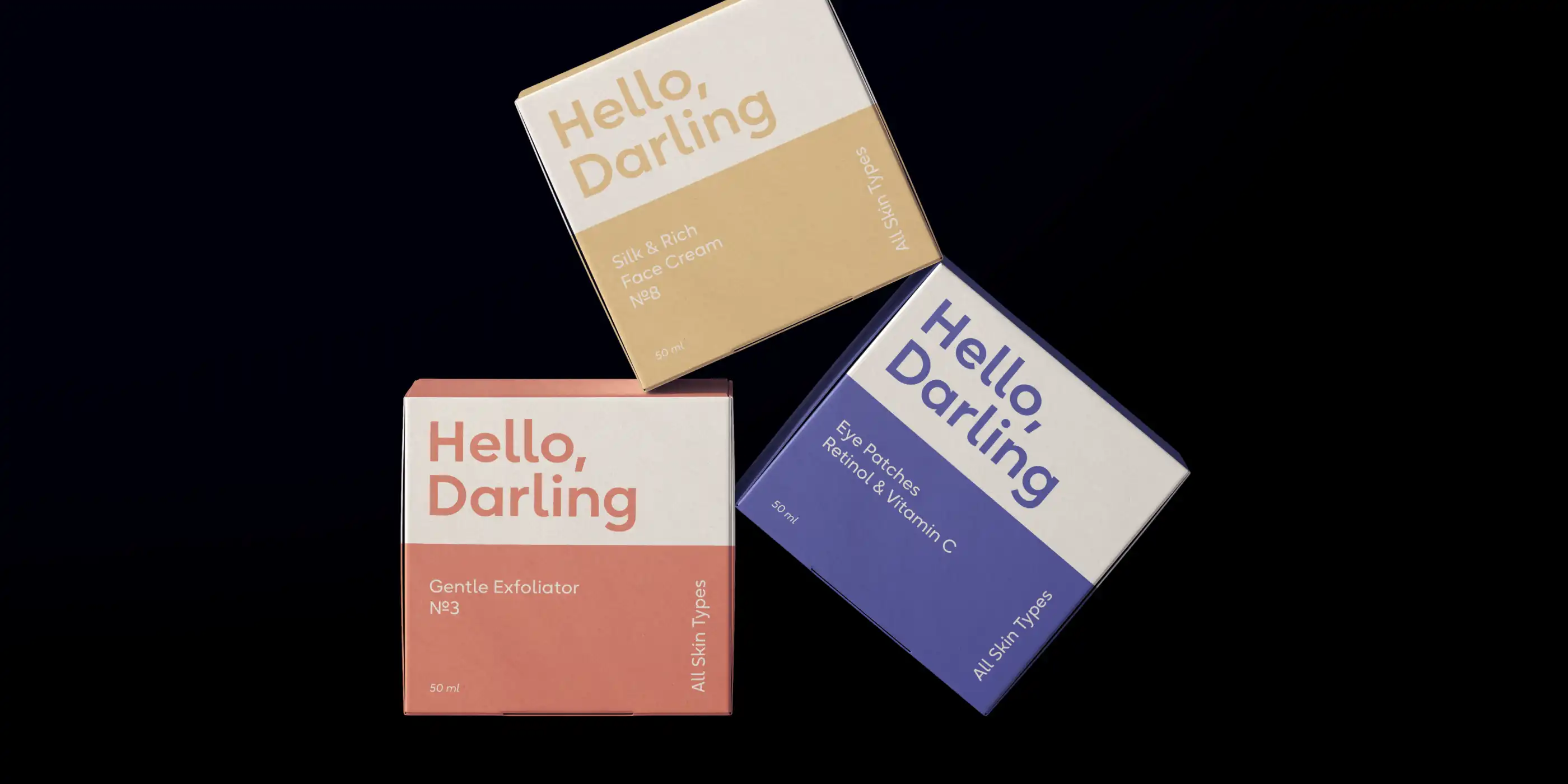
↑ Oktah Neue geometric font family
Oktah Neue is our all-time bestselling geometric sans serif type family, initially released in 2019. Trusted by countless designers worldwide, Oktah Neue attracts new customers daily. Thanks to its simple and geometric sans serif character, it's a multipurpose, easy to read font. It looks good on the web and in apps, making any message easy to read and understand.
Oktah Neue is highly versatile, supporting Latin, Cyrillic, Greek, and Hebrew scripts. It also features a selection of OpenType Features, such as Small Caps, Case-Sensitive Punctuation, Fractions, Sub- and Superscript, and many more. Oktah Neue is a perfect workhorse type family available in 22 styles and as a Variable Font with two axes: Weight and Width.
Oktah Neue best features: neutral, universal, easy-to-read, multilingual
2. Resist Sans Font Family
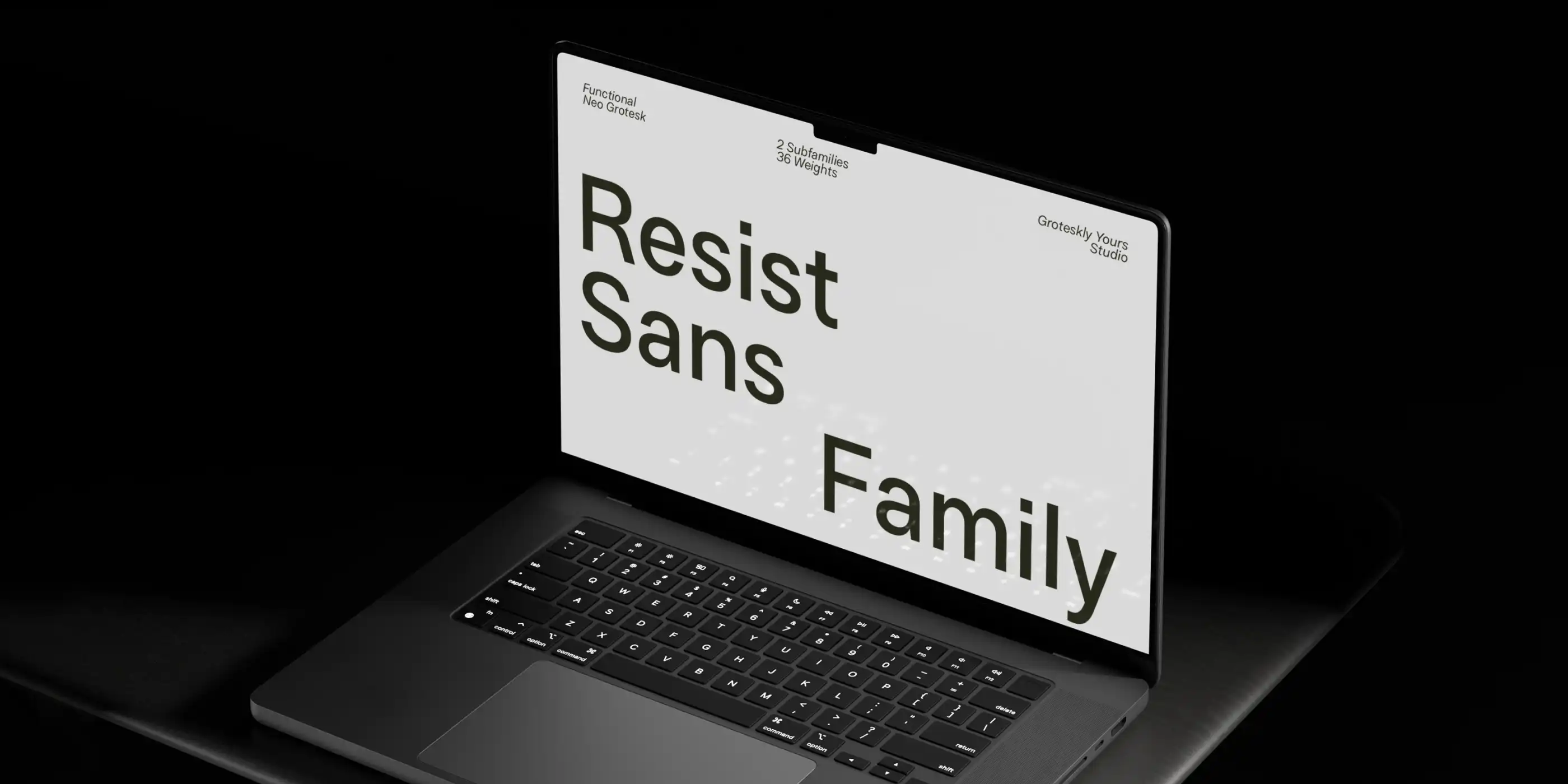
↑ Resist Sans universal font family
Resist Sans is a universal neo-grotesque type family available in 36 styles. Irreverent, neutral, and classy, It is the perfect Helvetica alternative for project seeking a strong Swiss-style font family. It looks excellent on printed materials such as type posters, magazines, and books but also easily holds its own in web design and UX/UI design. Resist Sans features sturdy, minimalistic letterforms, tight spacing, and a balanced rhythm, making it a versatile choice for designers.
Resist Sans has two subfamilies: Resist Text and Resist Display. Each serves a different purpose while remaining interchangeable and complementary in some cases. While Resist Display looks and feels like a classic sans serif, Resist Text has deep ink traps and optical compensators, allowing it to shine in smaller sizes.
Resist Sans best features: neutral, Swiss-style, formal, functional.
3. Refrankt Font Family
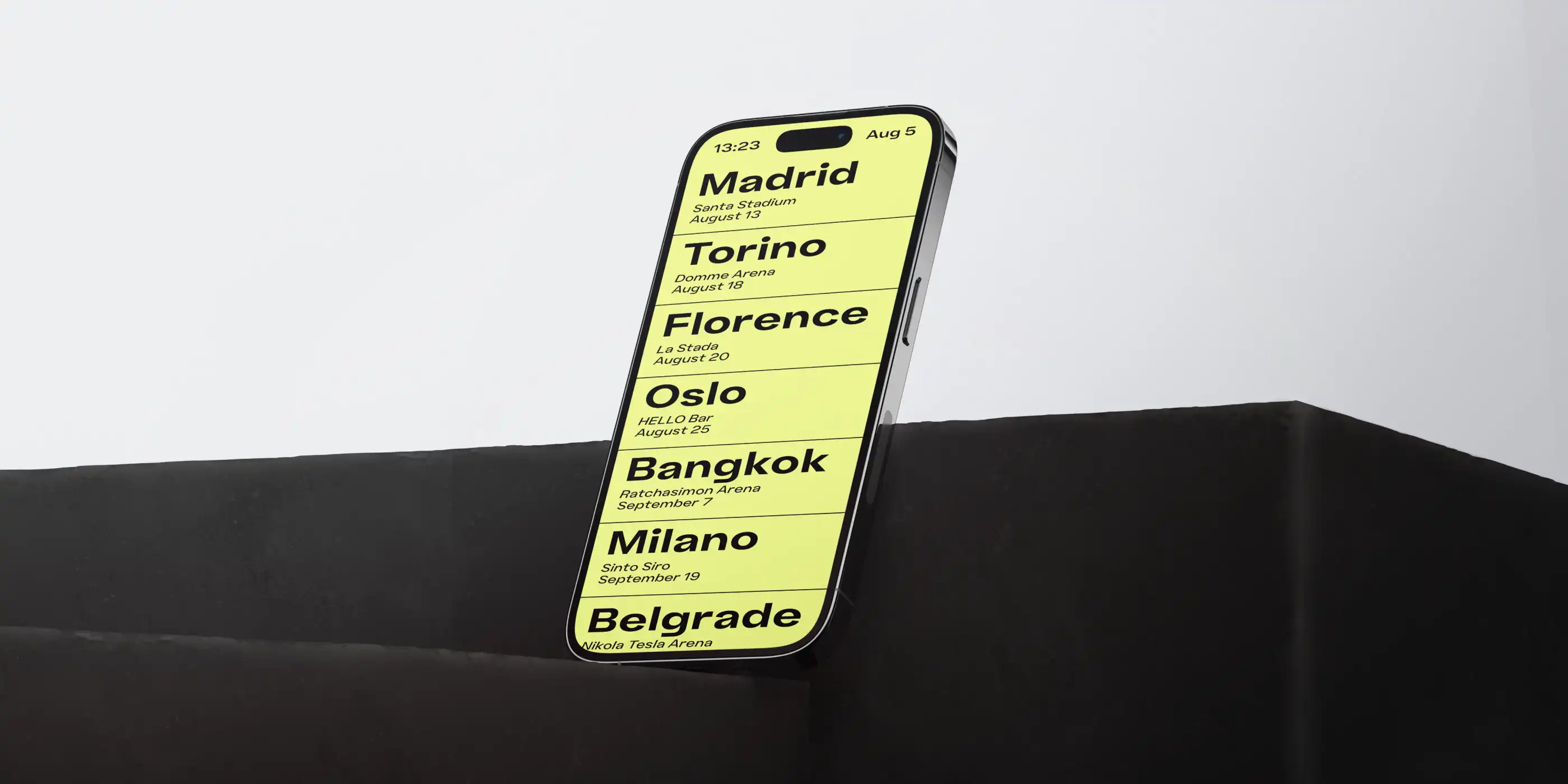
↑ Refrankt futuristic font family
Refrankt is a futuristic sans serif type family characterized by expanded proportions, smooth curves, cyberpunk font aesthetics, and wide letterforms. Inspired by space and aeronautical engineering, it is dynamic and sturdy while remaining legible, approachable, and user-friendly. It works well as a display font but can also be used comfortably in larger bodies of text.
Refrankt offers a clean and thoughtful take on the functional grotesque sans serif genre and shines in digital usage, from UI/UX design to web and app design. Refrankt is available in 18 styles (from Thin to Black) with matching italics.
Refrankt best features: futuristic, smooth, expressive, dynamic
4. Arlen Font Family
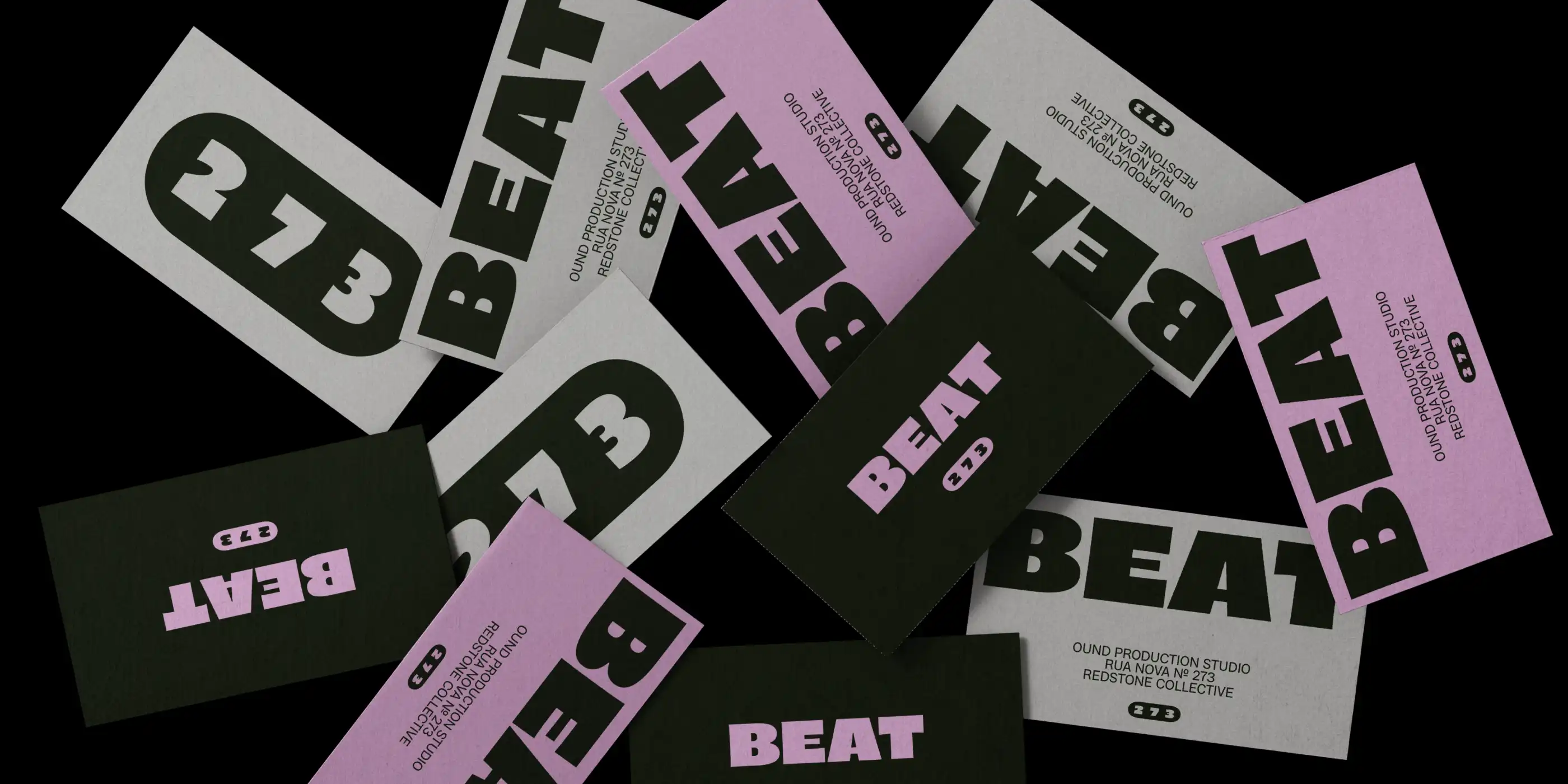
↑ Arlen 80s type family
Arlen is a funky 80s font family available in 36 styles. Initially designed for display usage, Arlen was inspired by hand-painted posters and vintage American signage. Arlen is playful, funky, and friendly, yet it remains a serious typographic tool for designers and brands seeking to brighten their designs with a unique typeface. Released in 2022, Arlen is now among our best sans serif fonts in the type library.
Arlen exudes positivity and adapts well to digital and print media. It's ideal for advertising, editorial design, social media, and more. The Arlen family supports multiple Latin-based languages and numerous OpenType features, including Case-Sensitive Forms, Stylistic Sets, and a wide selection of custom ligatures.
Arlen best features: funky, friendly, charismatic, happy
5. Jouter Sans Font Family
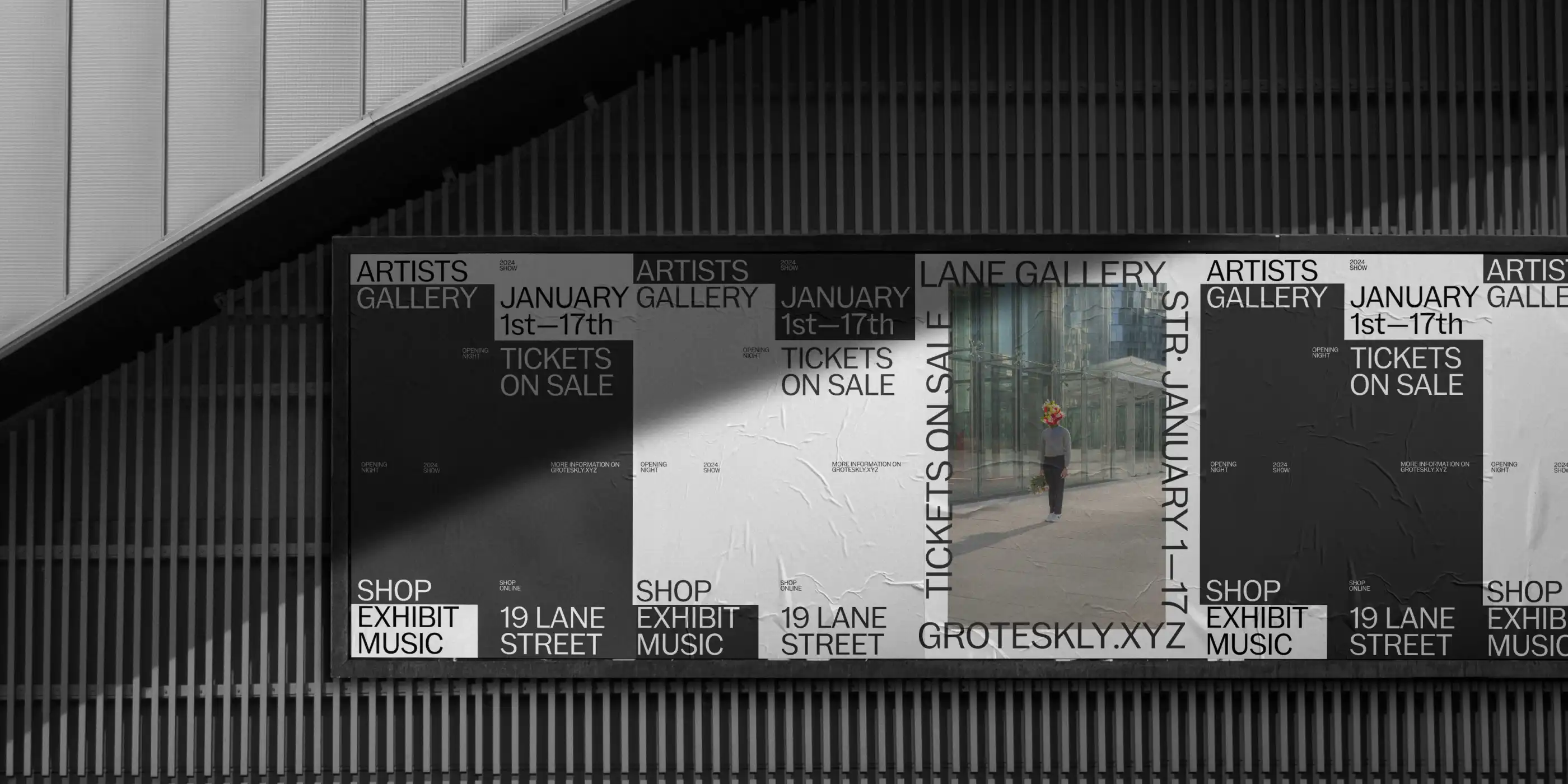
↑ Jouter Sans classic Gothic font family
Jouter Sans is a classic Gothic font family available in 18 styles or as a Variable Font. Inspired by 19th-century Gothic typefaces from the Farmer Type specimen, it's been fully redesigned to fit the needs of modern designers while keeping its unique look of early sans serifs.
Jouter Sans best features: historical, sturdy, functional, legible